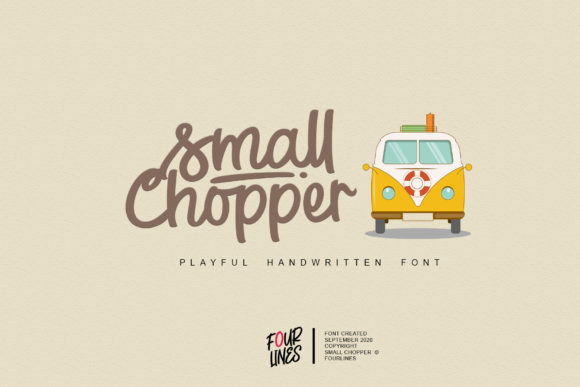
Small Chopper is a playful handwritten font that blends elegance with a modern twist. Designed for those who appreciate the charm of handcrafted typography, this font brings a fresh and stylish feel to any project. Whether you're working on a logo, social media post, or wedding invitation, Small Chopper offers a unique touch that stands out. If you're looking for a Small Chopper font download, you'll find it both versatile and easy to use. Its design makes it a top choice in the Script Handwritten category, perfect for adding a personal and artistic flair to your work.
Design & Style Analysis
Small Chopper has a distinct visual personality that sets it apart from other Script Handwritten fonts. Its letterforms are fluid and expressive, giving it a sense of movement and energy. The weight is light yet bold enough to maintain readability, making it suitable for both digital and print projects. The spacing between characters is carefully balanced, ensuring that the font looks clean and professional without feeling cramped or too open.
Letterforms
The letterforms in Small Chopper are designed with a natural flow, mimicking the look of handwritten text. This gives the font a warm and inviting feel, ideal for creative projects that require a personal touch. Each character is crafted with attention to detail, maintaining a consistent style while allowing for subtle variations that add character.
Weight
Small Chopper features a light weight that enhances its legibility while preserving its stylistic appeal. This makes it well-suited for body text, headings, and display purposes. Its balance of weight and style ensures that it remains readable at smaller sizes without losing its distinctive personality.
Spacing
The spacing in Small Chopper is thoughtfully designed to enhance readability and aesthetics. It avoids excessive gaps or tight clusters, creating a harmonious layout that works well across different mediums. Whether used in a logo or a poster, the font maintains a polished appearance that complements a wide range of design styles.
Best Uses for Small Chopper
Small Chopper is incredibly versatile, making it an excellent choice for a variety of design projects. Here are some of the best uses for this font:
Small Chopper for Logo Design
When designing a logo, the right font can make all the difference. Small Chopper is ideal for logos that need a personal and artistic touch. Its playful yet sophisticated style adds a unique identity to your brand, making it stand out in a competitive market.
Small Chopper for Branding
For branding purposes, Small Chopper offers a fresh and modern approach. Whether you're creating a business card, packaging, or website header, this font adds a professional yet creative edge. It's especially effective when paired with minimalist designs that highlight its elegant curves.
Small Chopper for Wedding Invitations
Wedding invitations often require a touch of elegance and charm. Small Chopper is perfect for this purpose, offering a soft and romantic feel that complements the occasion. Its handwritten style adds a personal and heartfelt touch, making it a favorite among designers and couples alike.
Font Pairing & Combinations
Pairing Small Chopper with other fonts can create visually appealing designs that enhance your message. Here are a few effective combinations:
What fonts pair well with Small Chopper? A classic serif font like Georgia or Garamond can provide a strong contrast, balancing the playfulness of Small Chopper with a more traditional look. For a modern aesthetic, pairing it with a clean sans-serif like Helvetica or Roboto can create a sleek and professional appearance.
Another great option is to combine Small Chopper with a display font for headlines and a body font for longer text. This creates a clear hierarchy and ensures that your design remains readable and engaging. When using it in a Small Chopper font pairing, consider the mood and purpose of your project to achieve the best results.
When using Small Chopper vs similar fonts, consider the differences in style and weight. While other Script Handwritten fonts may offer a similar look, Small Chopper has its own unique characteristics that set it apart. Reviewing these differences can help you choose the right font for your specific project needs.